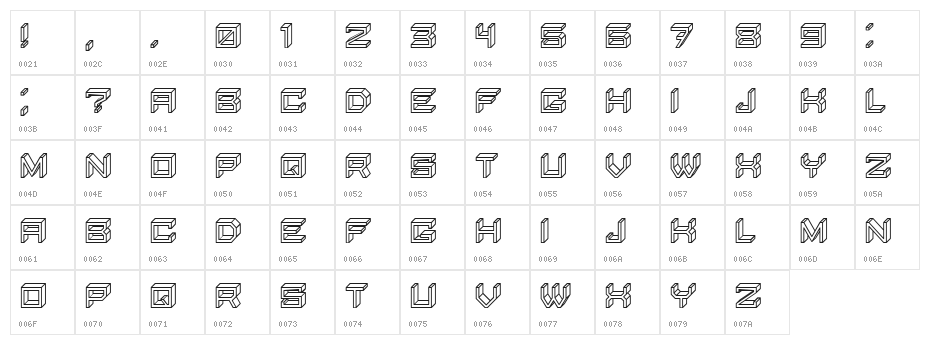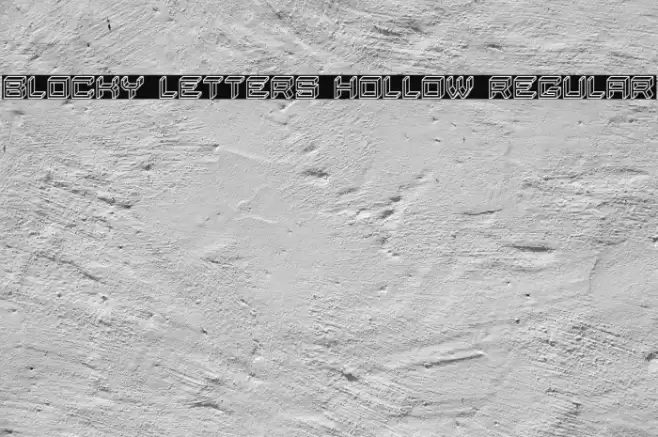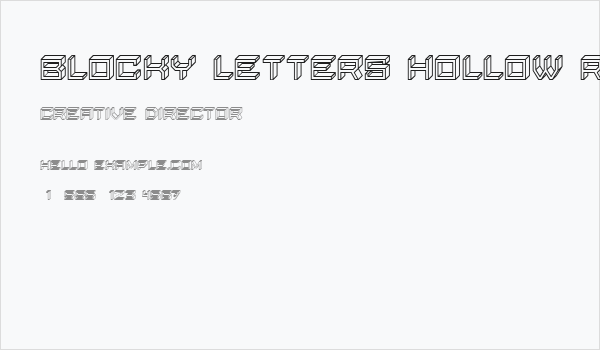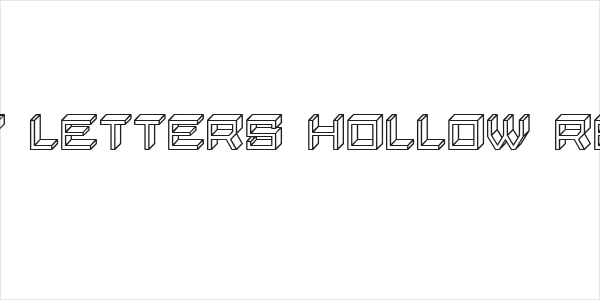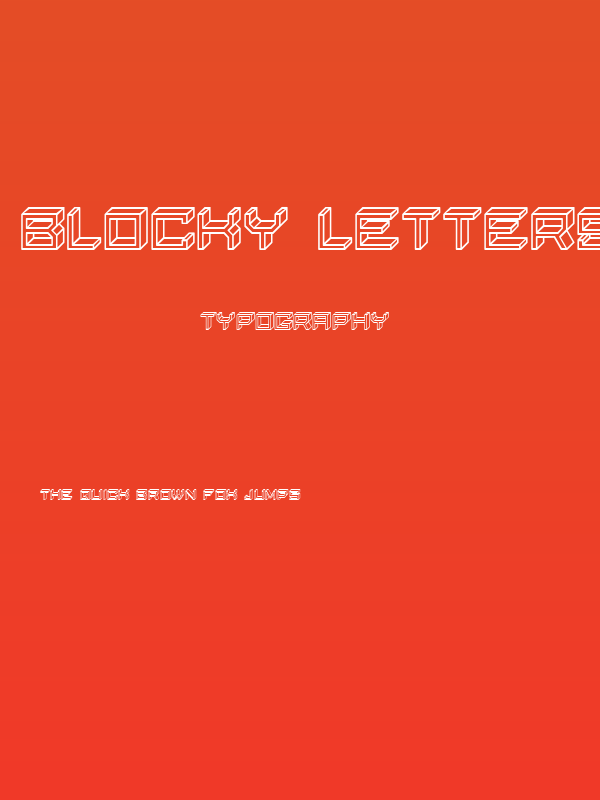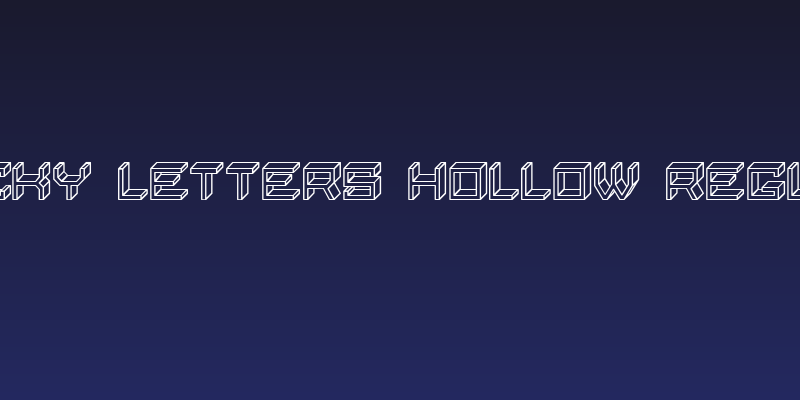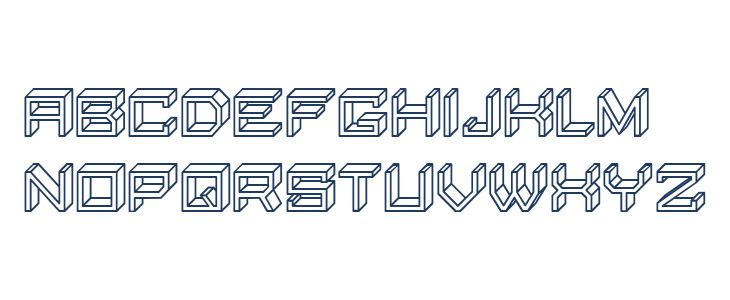
Blocky Letters Hollow Regular Font
Blocky Letters Hollow Regular Description
This font features a bold, geometric design with a hollow interior, creating a striking 3D effect. The characters are constructed with sharp, angular lines that form a blocky appearance, giving it a modern and futuristic feel. The hollow centers add a unique depth, making each letter stand out with a distinct shadow effect. This style is consistent across uppercase and lowercase letters, as well as numbers and special characters. The font's structure is clean and precise, with uniform line thickness that maintains readability despite its decorative nature.
| Proposed Projects | Ideal for futuristic branding, video game titles, tech-related posters, and modern logo designs. |